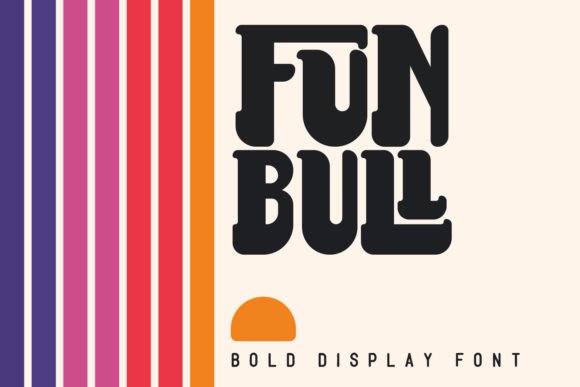
Step into a world of captivating typography with Fun Bull Font, a display font family that exudes a vibrant retro charm. Let this font take center stage in your creative projects and watch as it transforms them into captivating masterpieces.
Fun Bull Font is not just a font; it's an experience that will ignite your imagination and leave your audience spellbound. Its unique character set, bursting with personality, adds an irresistible charm to any design. Dive into a world of endless possibilities, where your words will dance with grace and style.
With Fun Bull Font, you'll discover a treasure trove of creative opportunities. Craft eye-catching logos that demand attention, design posters that transport viewers to another era, or create social media graphics that pop off the screen. Unleash your inner artist and let Fun Bull Font guide you towards typographic greatness.
Whether you're a seasoned designer or just starting, Fun Bull Font is your perfect companion. Its user-friendly interface and extensive character set make it accessible to all, while its stunning aesthetics will elevate your work to new heights.